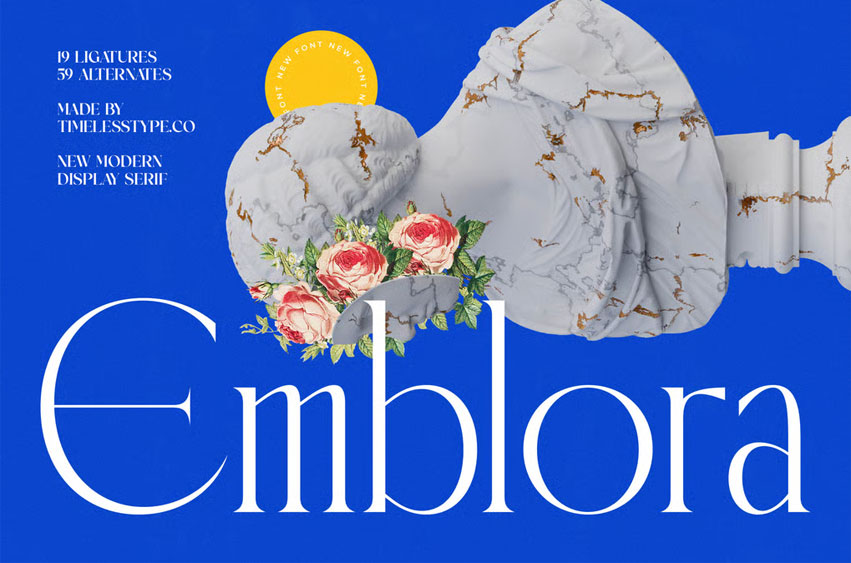
Emblora Font
Emblora Font sign, packaging, and invitations, Emblora bring timeless beauty and versatility to every creative project, making it suitable for both classic and modern aesthetics.